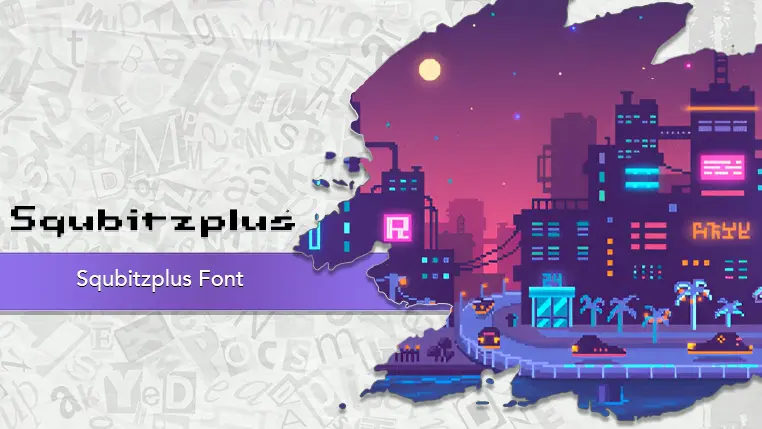
The Squbitzplus font family may be ideal for you if you enjoy working on an artistic design project. The lively, expressive look of this typeface, which was created by Bit Bits, makes it ideal for Best use For events, parties, or art exhibits celebrating 8-bit, 16-bit, or early digital culture. Also on album art for chiptune, synthwave, electronic music, or lo-fi genres. Use it on merchandise design like T-shirts, mugs, and other items for fans of retro gaming or vintage computers. More over you can use for applications or websites that intentionally lean into a minimalist, retro, or command-line interface aesthetic. and other light-hearted visual projects.
Medium are the one primary font styles of the Squbitzplus font family. You may build dynamic, visually appealing text layouts with the distinct flair that each style offers. With crisp, readable lines and a relaxed tone.